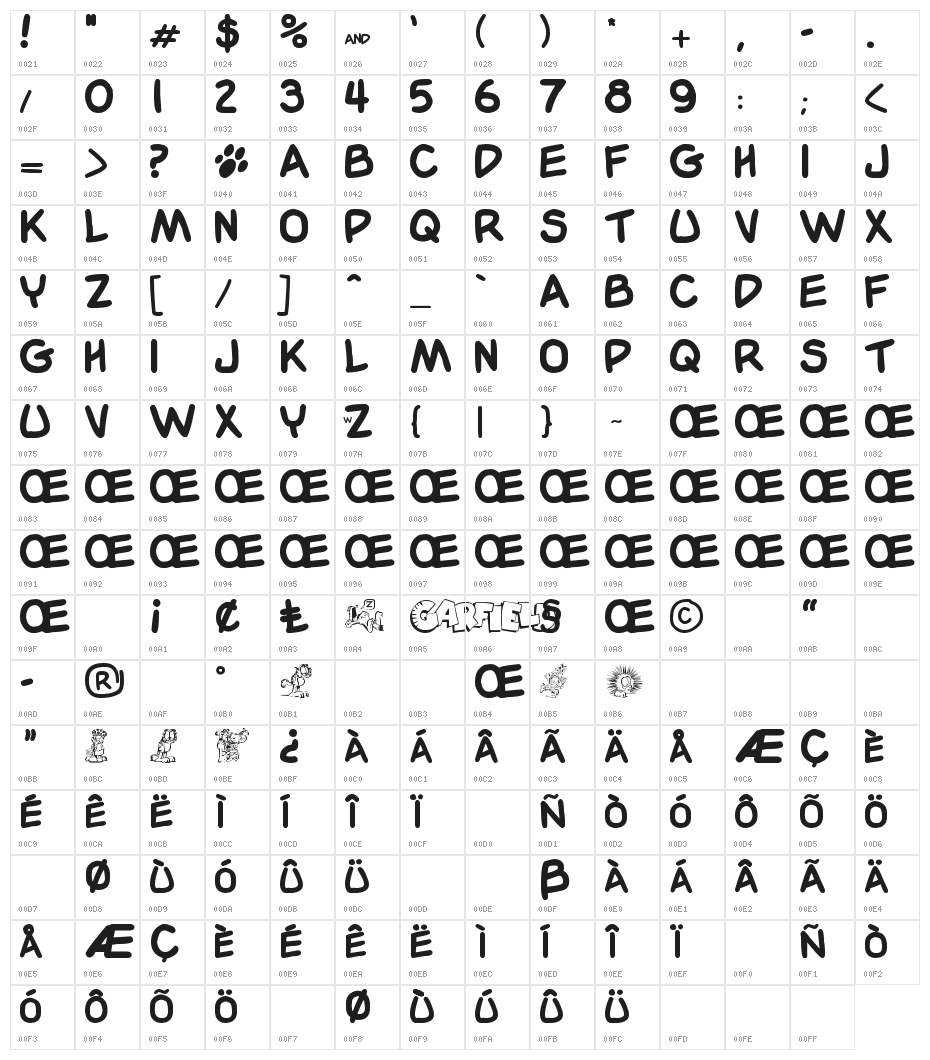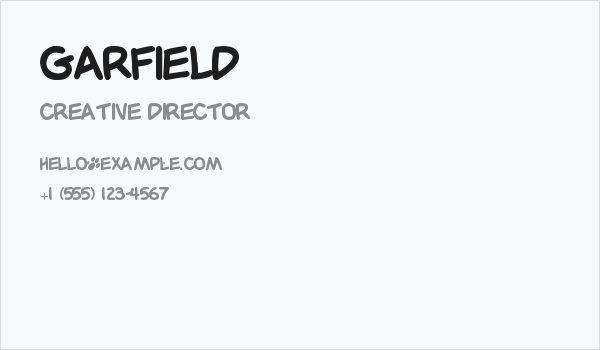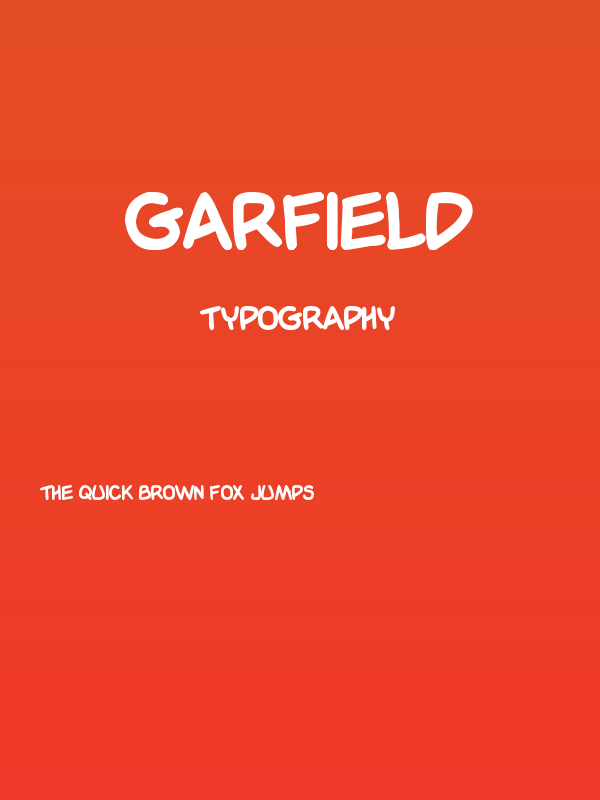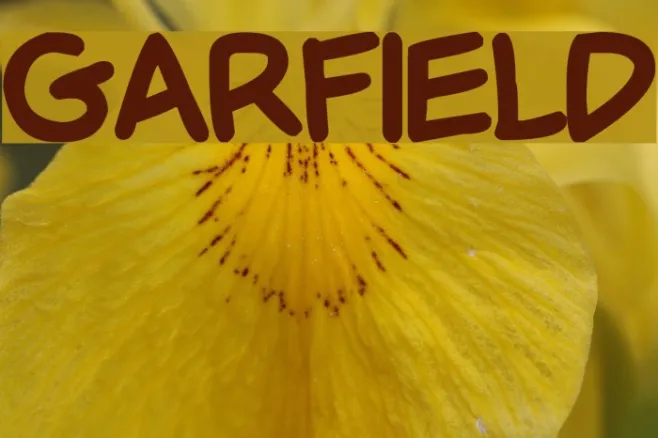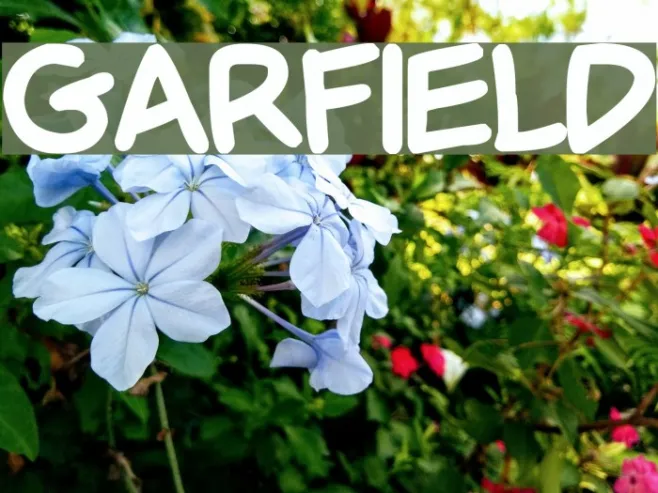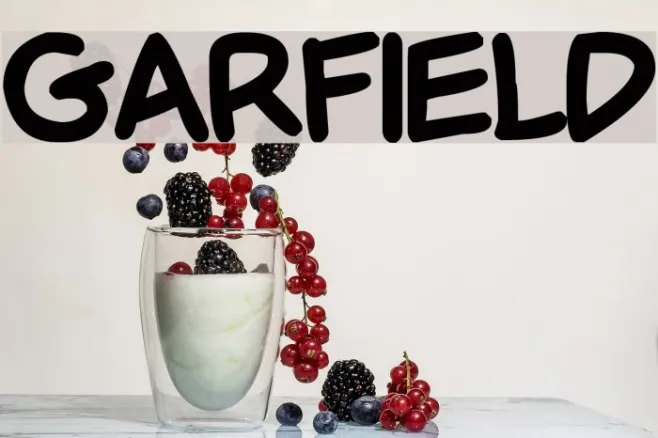
Garfield Font
Garfield Description
This playful and bold font exudes a sense of fun and whimsy, characterized by its thick, rounded strokes and slightly irregular shapes. The letters have a cartoonish quality, making them appear lively and energetic. The uppercase and lowercase letters maintain a consistent style, with rounded edges and a slight tilt that adds to the dynamic feel. The numerals and special characters follow the same design principles, ensuring a cohesive look across all elements. This font is perfect for projects that require a touch of humor and personality, such as children's books, comic strips, or playful branding.
| Overall Style | Playful, Cartoonish |
| Proposed Projects | Ideal for children's books, comic strips, playful branding, and casual invitations. |